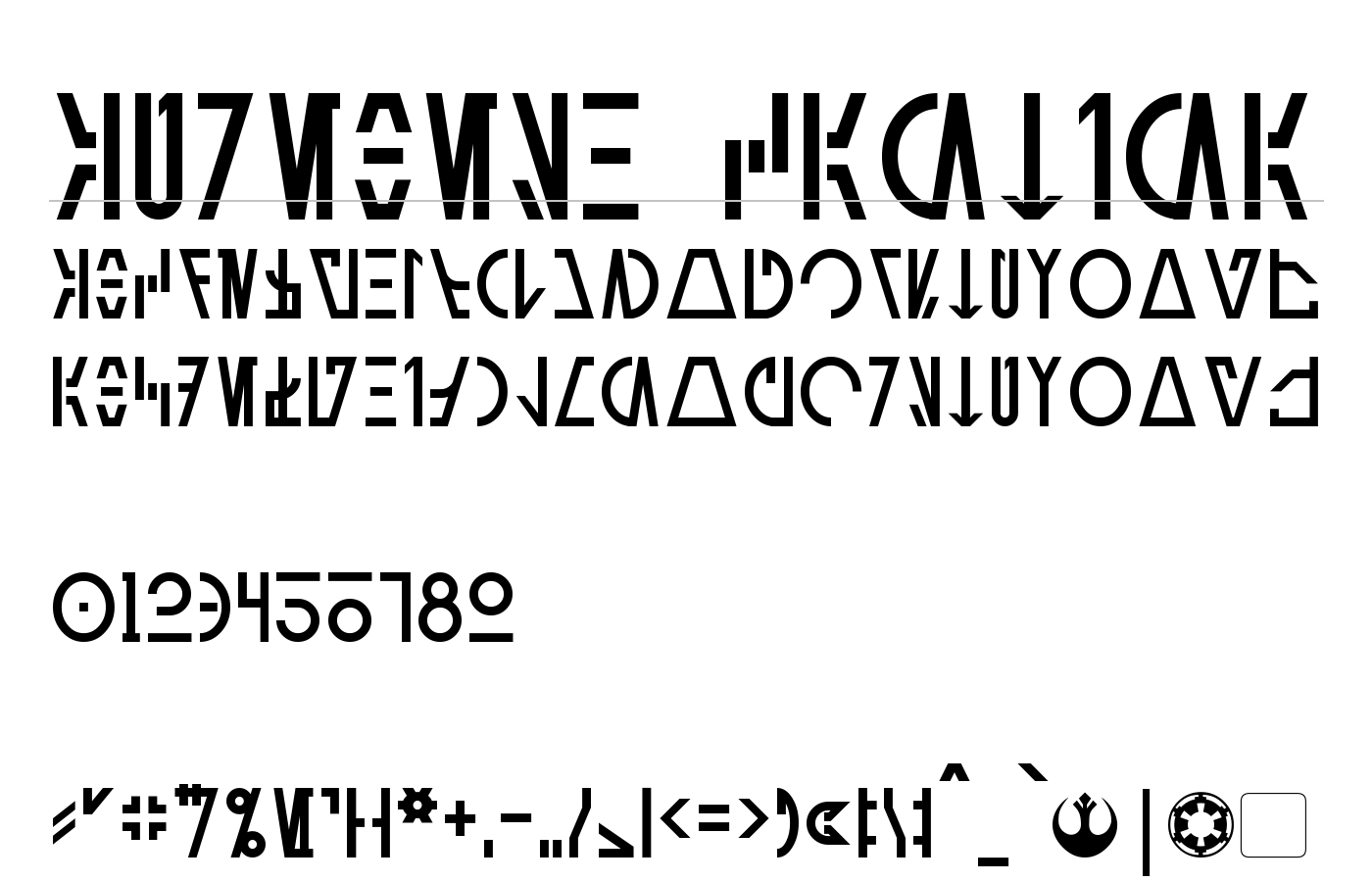
Aurebesh Cantina is a bold, geometric sans serif font with a sci-fi and futuristic vibe, featuring high contrast between thick and thin strokes and unique angular letterforms inspired by the iconic Star Wars universe. Its stylized characters and symbols create a mysterious, tech-inspired look perfect for branding, posters, or designs that want to evoke a space-age, otherworldly atmosphere. This font shines in headline and display uses where its distinct personality can captivate and engage.
Aurebesh Cantina Font
About Aurebesh Cantina Font